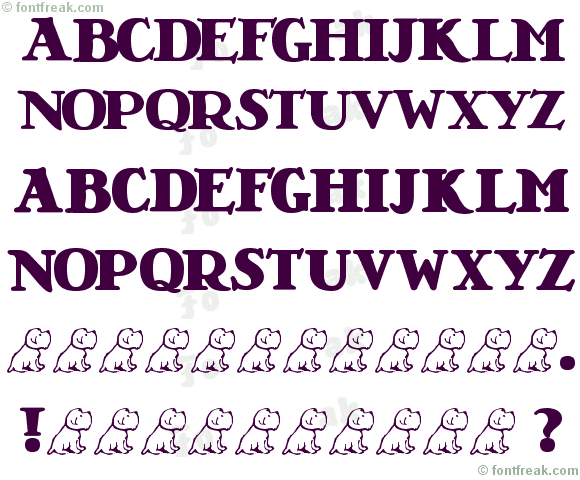
About Nutshell Library
Nutshell Library is a unique display font designed by Lauren Thompson, which captures the whimsical essence of childhood literature. This freeware font is inspired by the beloved works of Maurice Sendak, bringing a nostalgic charm that resonates with readers of all ages. With its playful, rounded letterforms, Nutshell Library falls into the decorative category, making it perfect for projects that aim to evoke warmth and imagination.
Visually, the font features a consistent stroke weight that maintains a friendly and approachable feel. The letters are well-spaced, enhancing readability while retaining a light-hearted character. Decorative elements, such as subtle curves and playful flourishes, add to its whimsical appeal, making it an ideal choice for creative applications. The overall design reflects a delicate balance between elegance and playfulness, inviting users to engage with the text.
Nutshell Library is particularly well-suited for a variety of creative projects. It shines in children's book covers, where its enchanting style can capture the hearts of young readers. Additionally, it makes a delightful choice for wedding invitations, adding a touch of whimsy to the special day. Graphic designers might also find it useful for designing engaging marketing materials, such as flyers or posters for events aimed at families. Restaurant menus could benefit from this font, providing a charming and inviting atmosphere for diners.
The target audience for this font includes graphic designers, small business owners, and content creators looking to infuse their projects with creativity and nostalgia. By offering a unique typographic voice, Nutshell Library font free download allows users to express their artistic vision effortlessly. This font stands out due to its ability to blend playfulness with elegance, making it a versatile choice for anyone seeking to captivate their audience with a touch of whimsy.